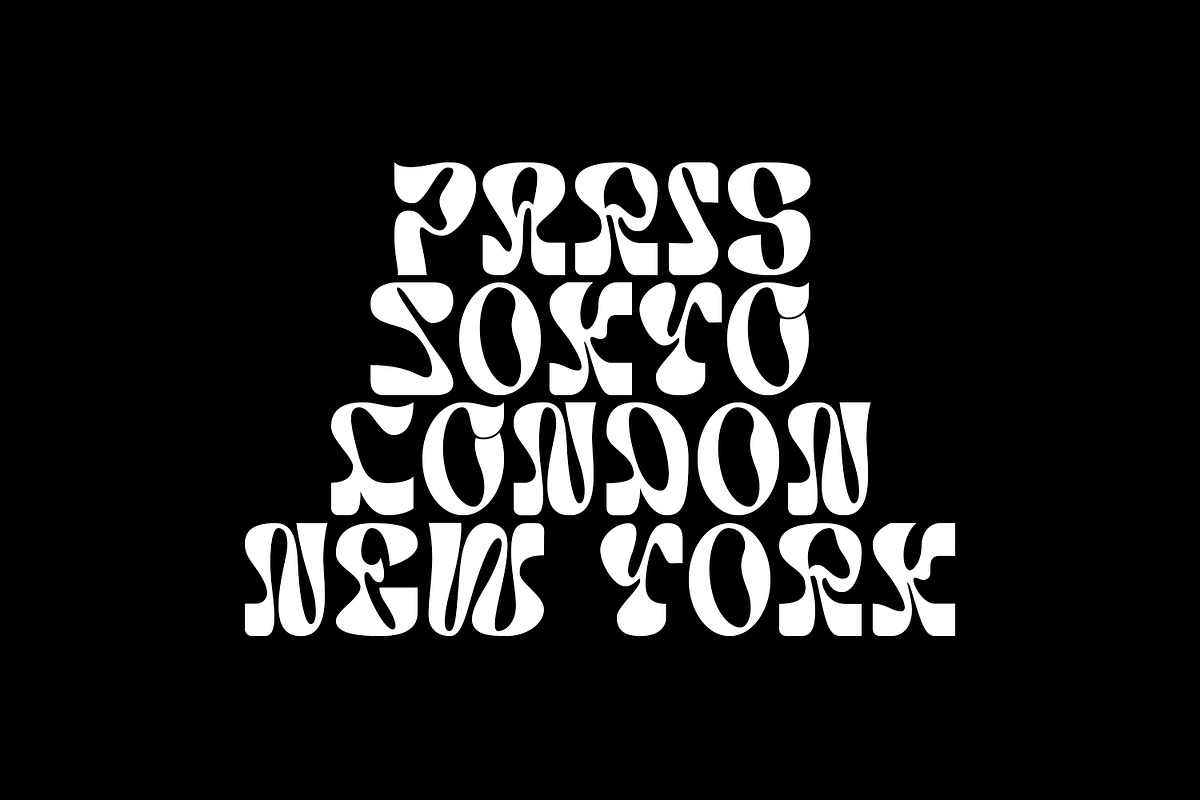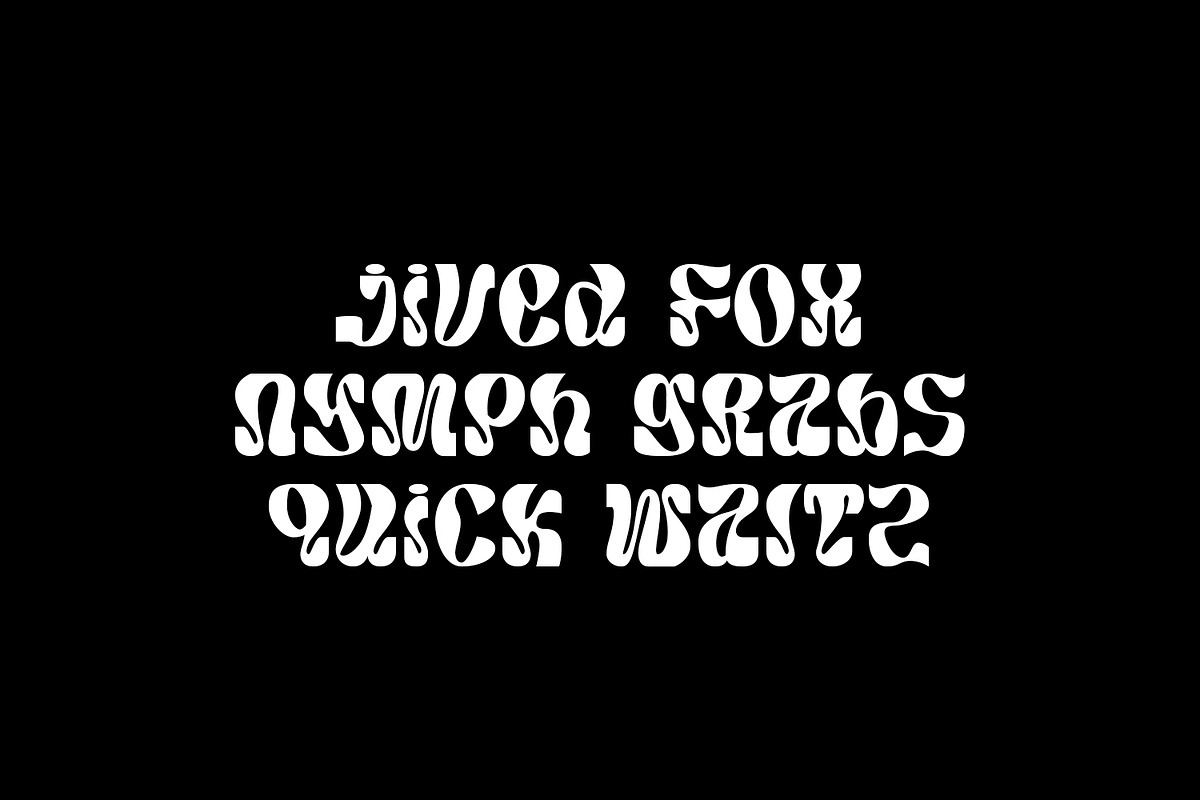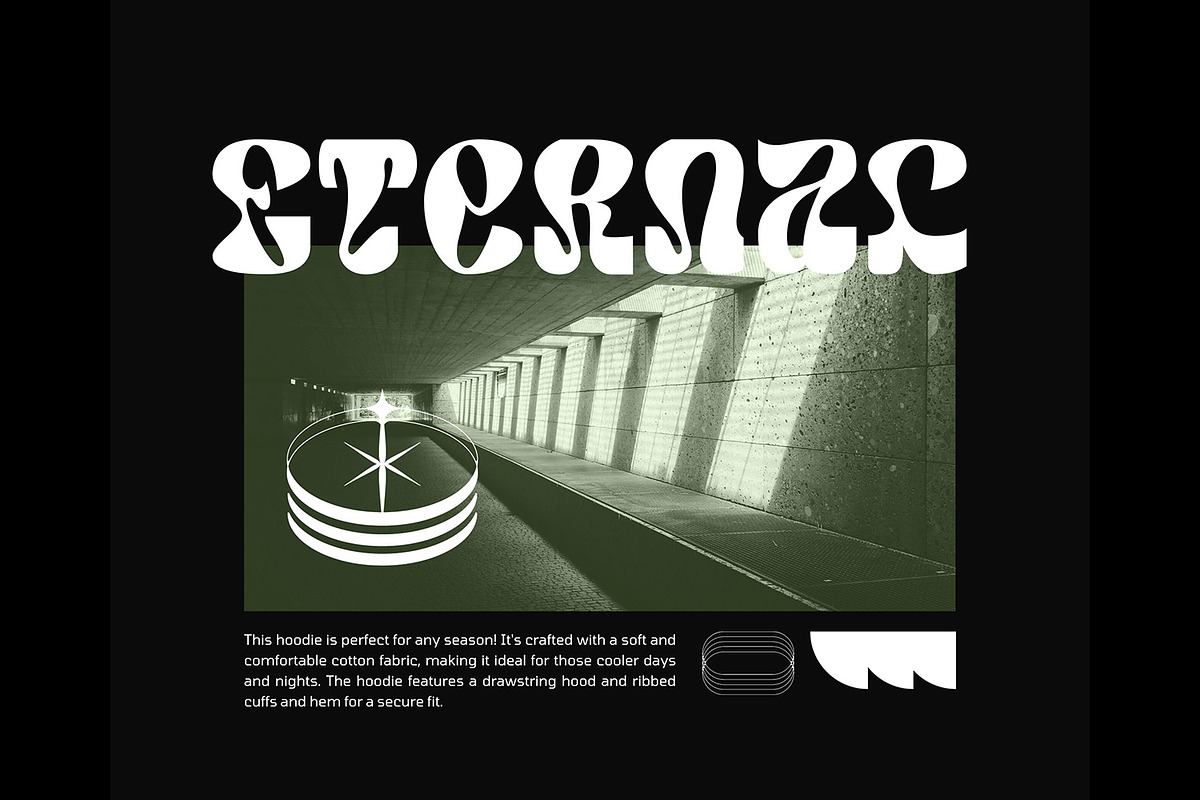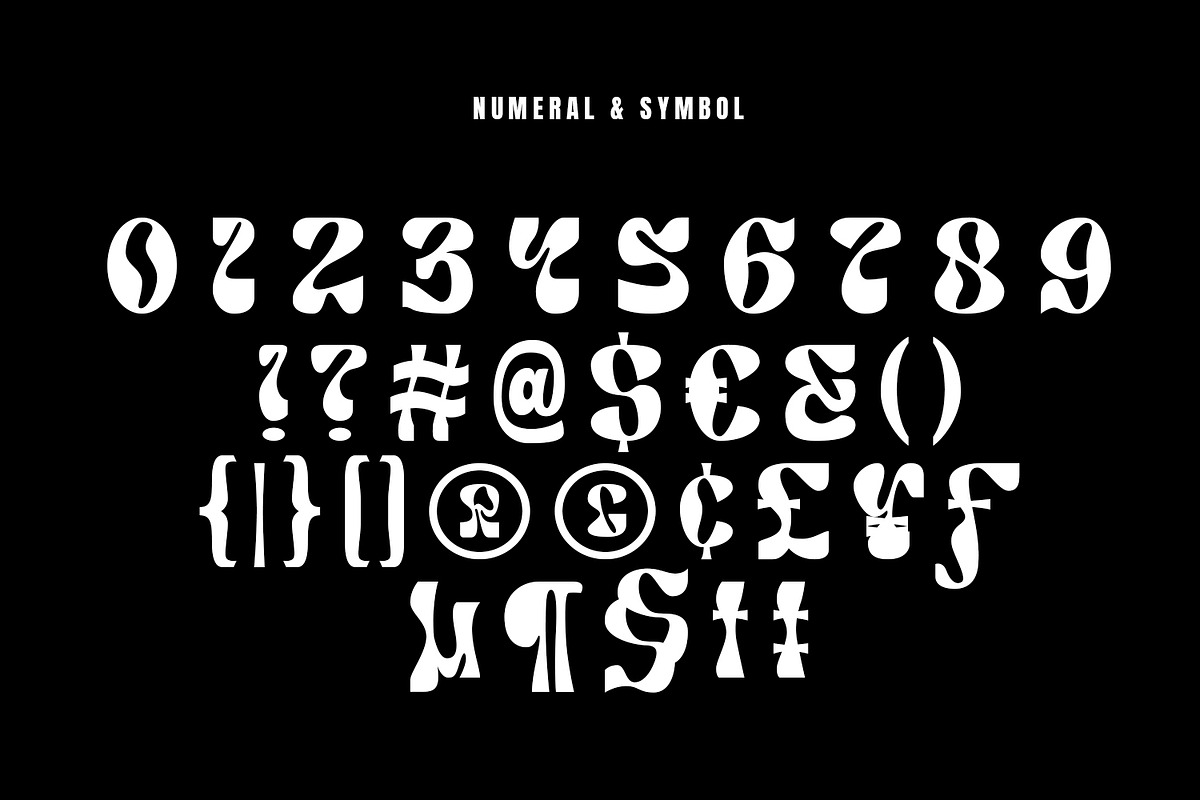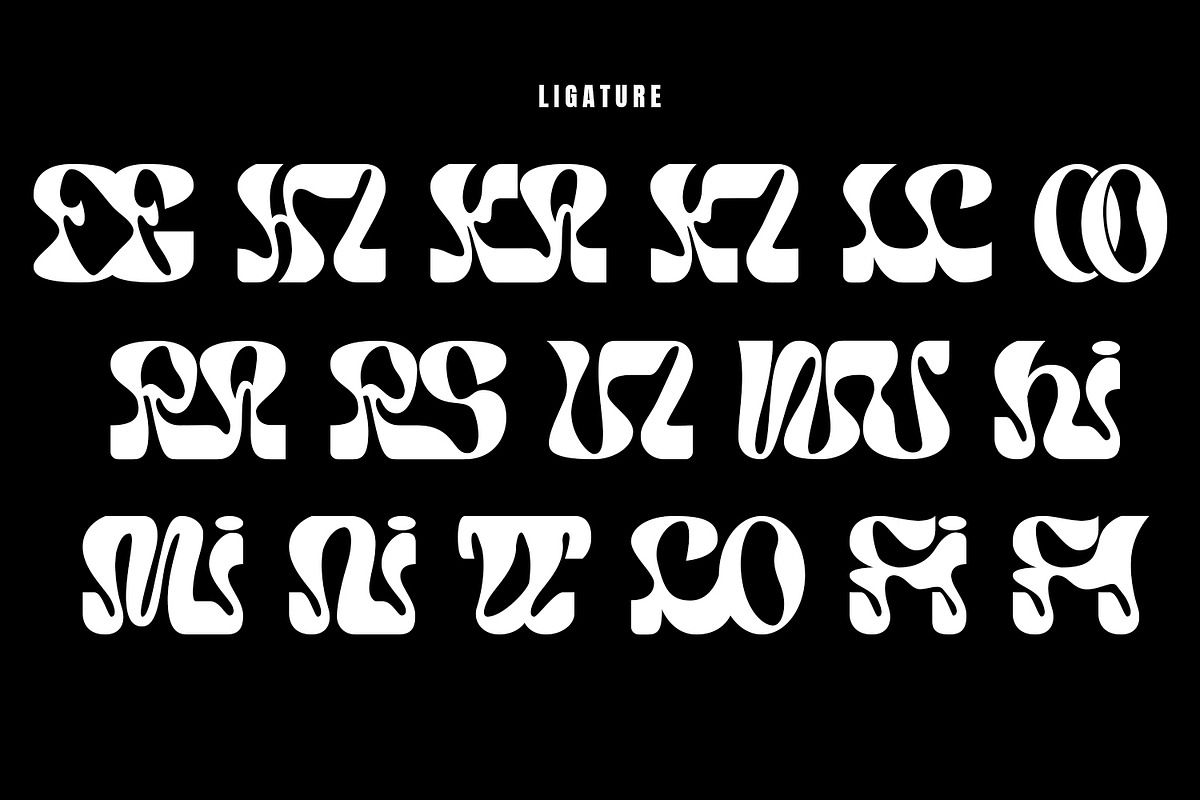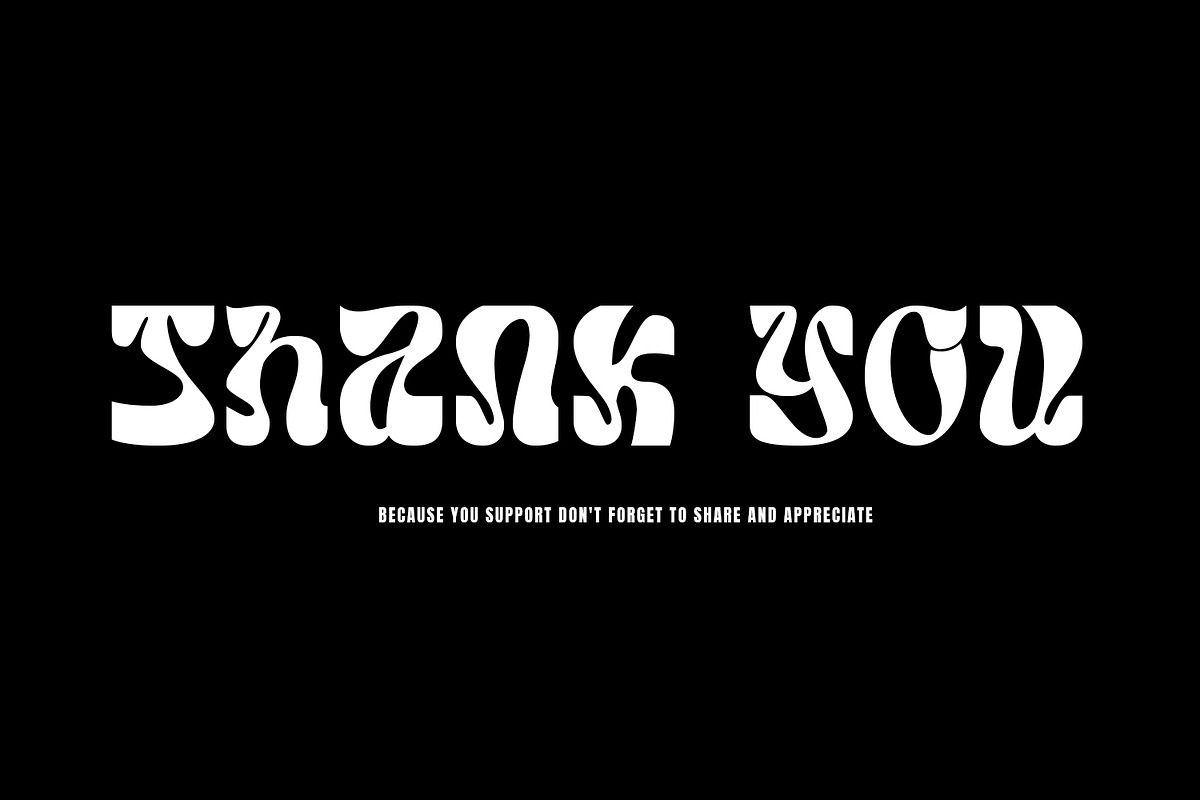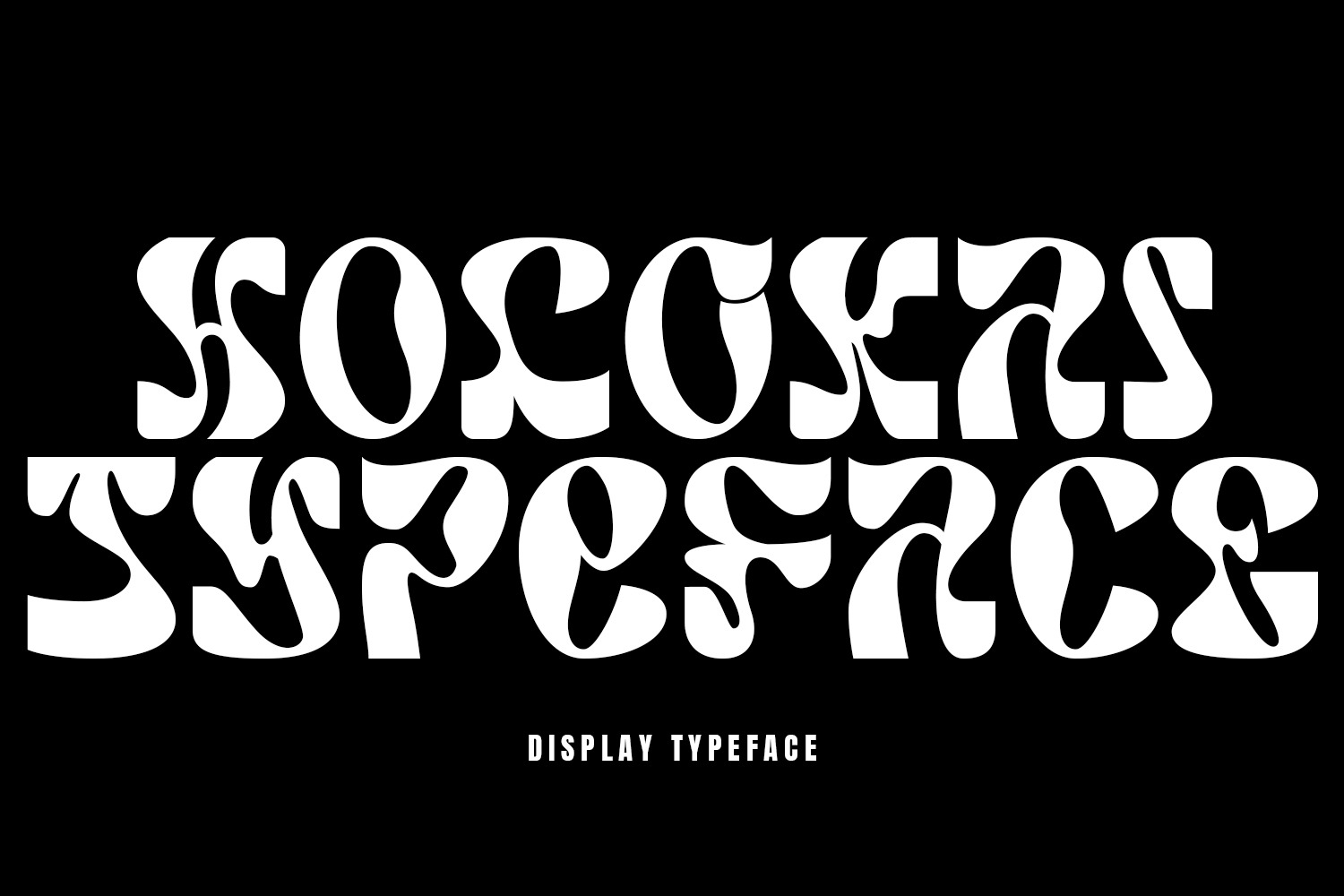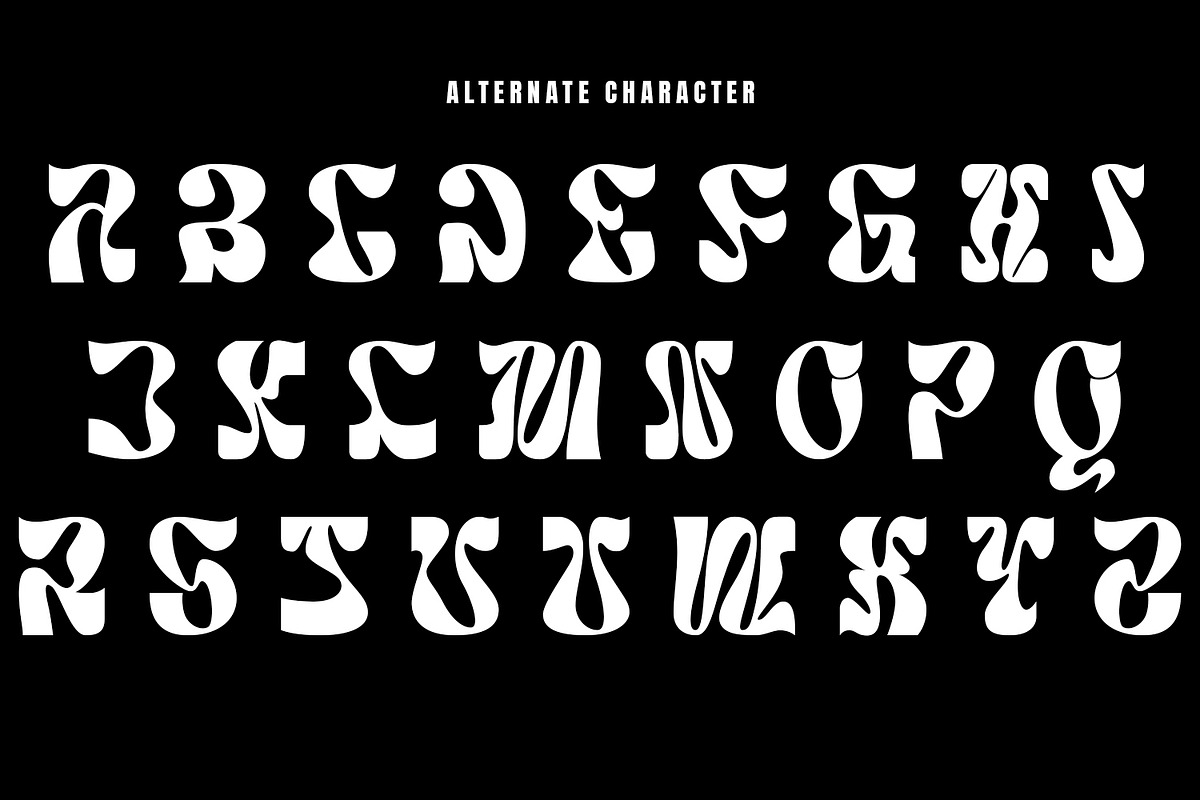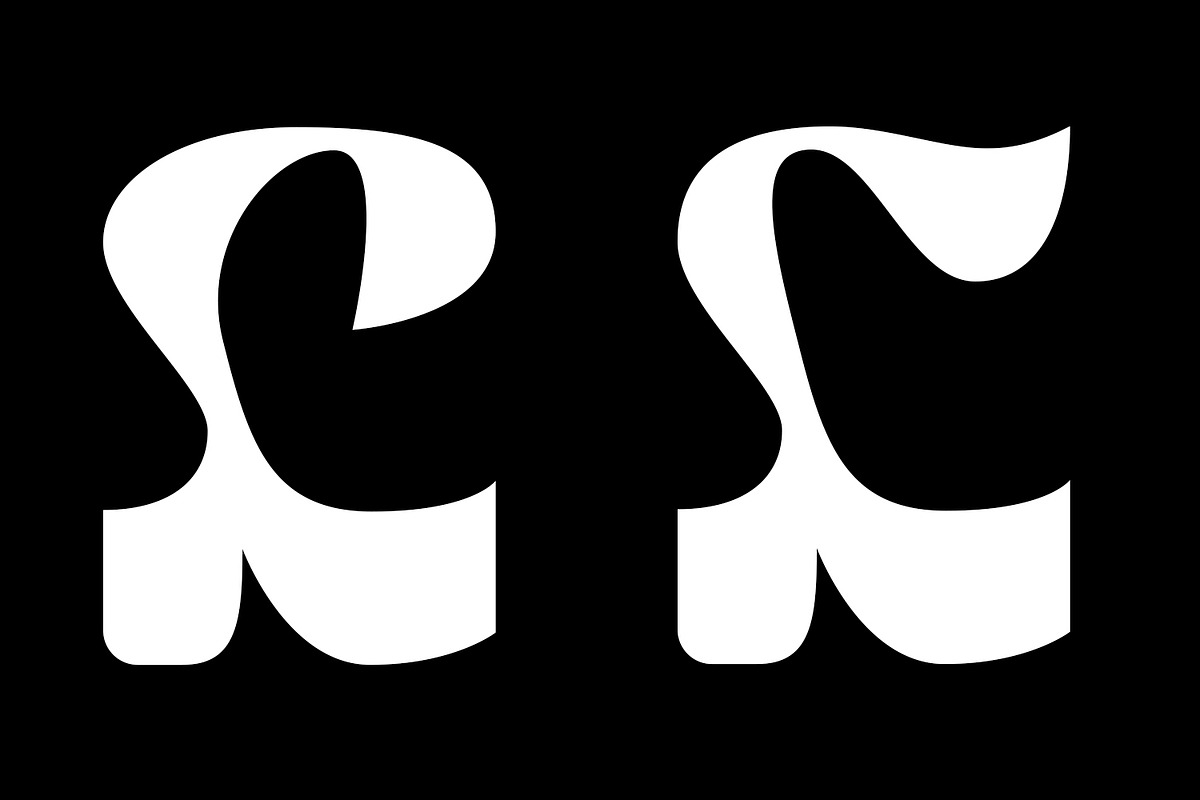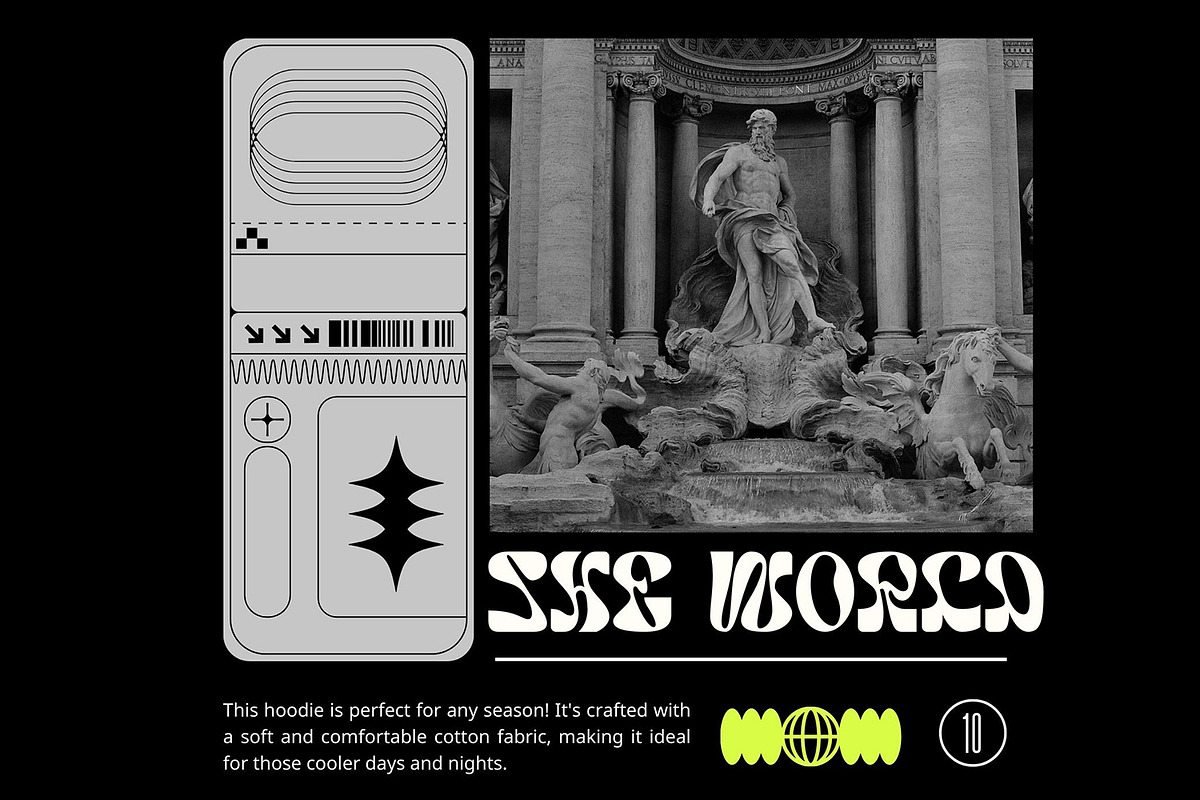
Holokai Typeface is a category of typeface specifically designed for use in larger sizes, typically for headings, titles, logos, and other prominent design elements. Unlike text or body typefaces, which prioritize readability in smaller sizes for extended reading, display typefaces are crafted to make a visual impact and convey a distinct aesthetic